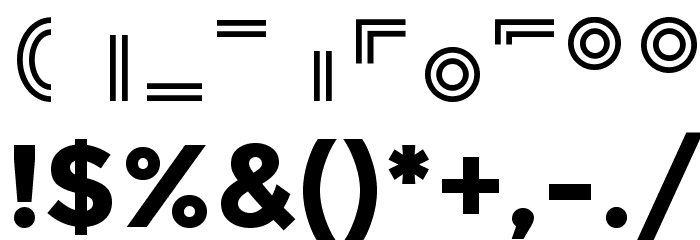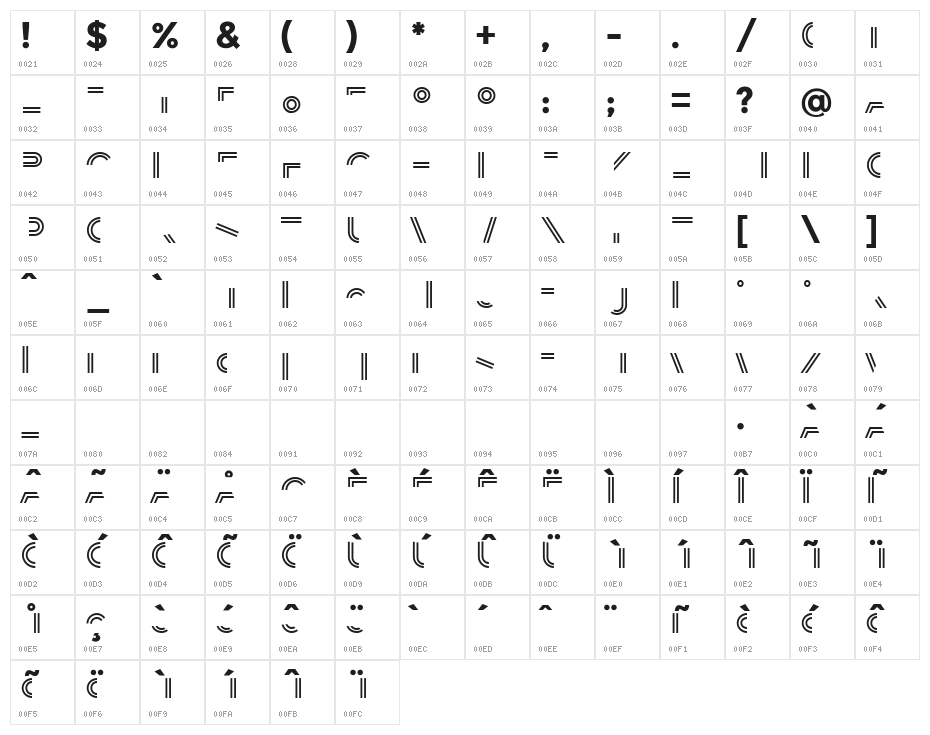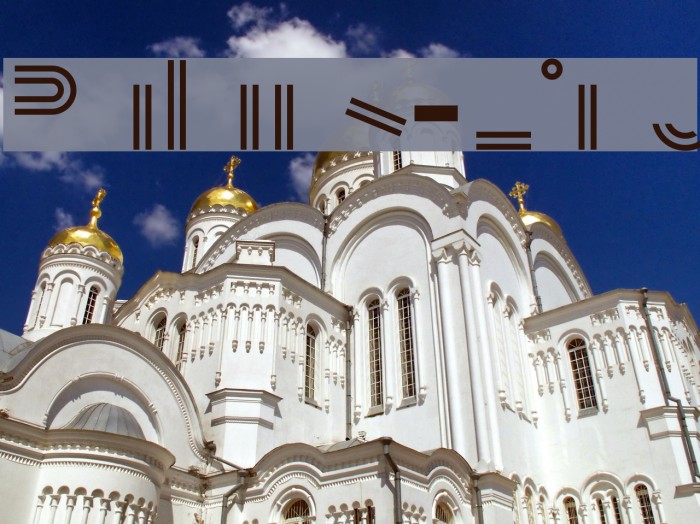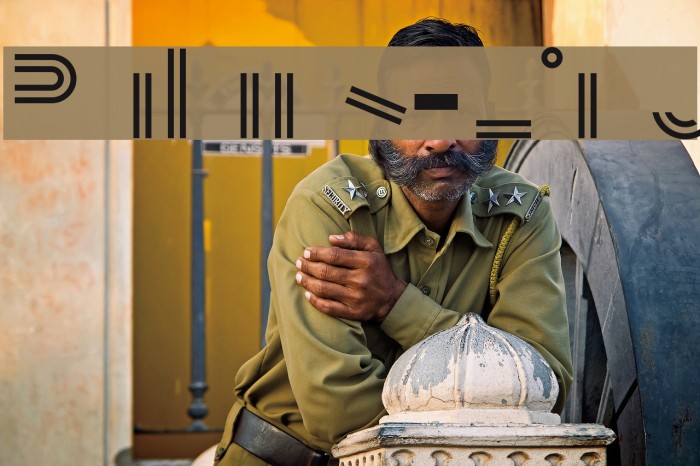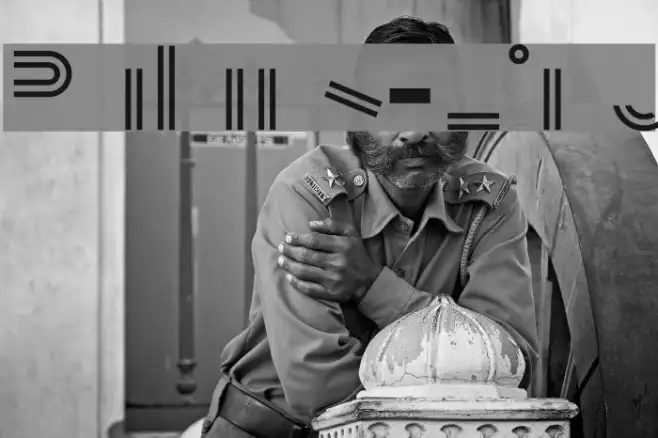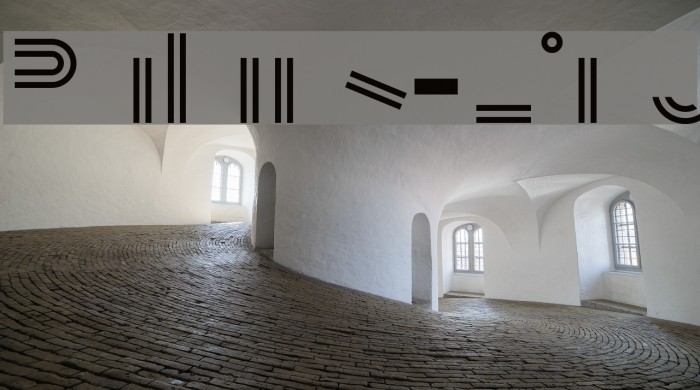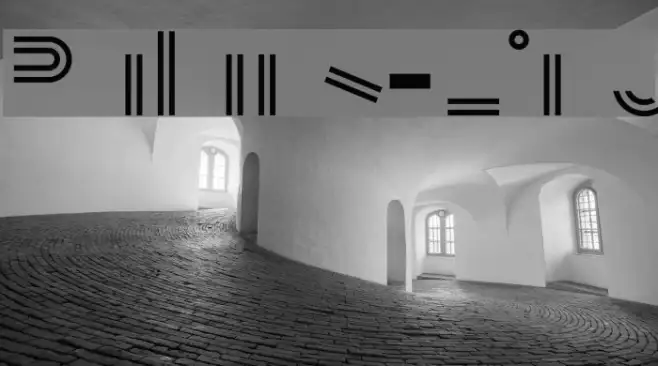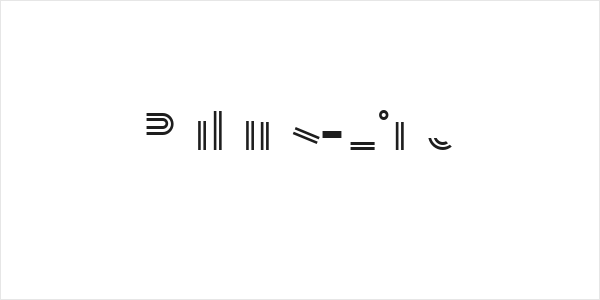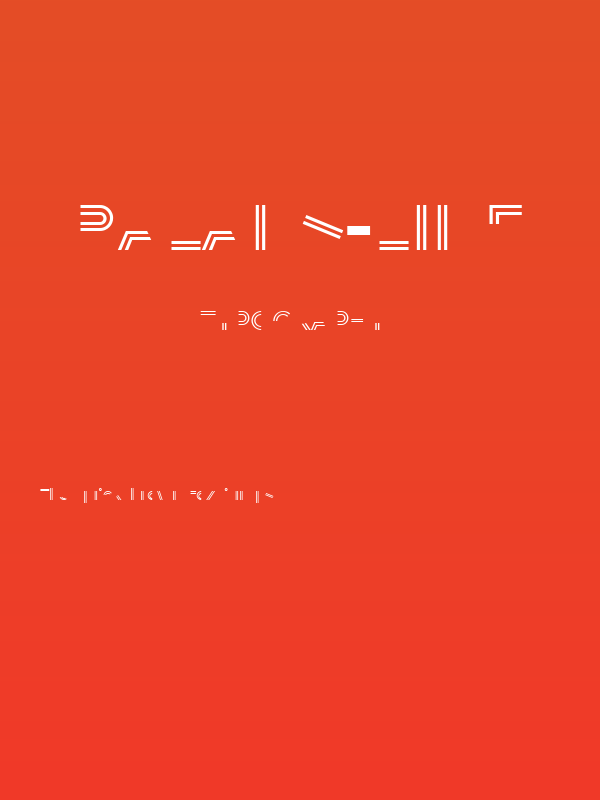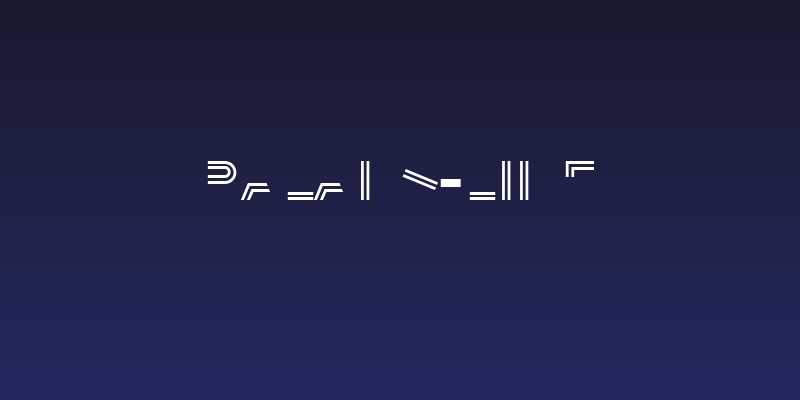
Balans-Line Font
Balans-Line Description
This font features a modern, geometric design with a unique use of parallel lines to form each character. The letters are constructed with a series of horizontal and vertical strokes, creating a sense of movement and rhythm. The uppercase and lowercase letters maintain a consistent style, with a focus on symmetry and balance. The numbers and special characters follow the same design principles, ensuring a cohesive look across all elements. This font's distinct style makes it stand out, offering a fresh and contemporary feel.